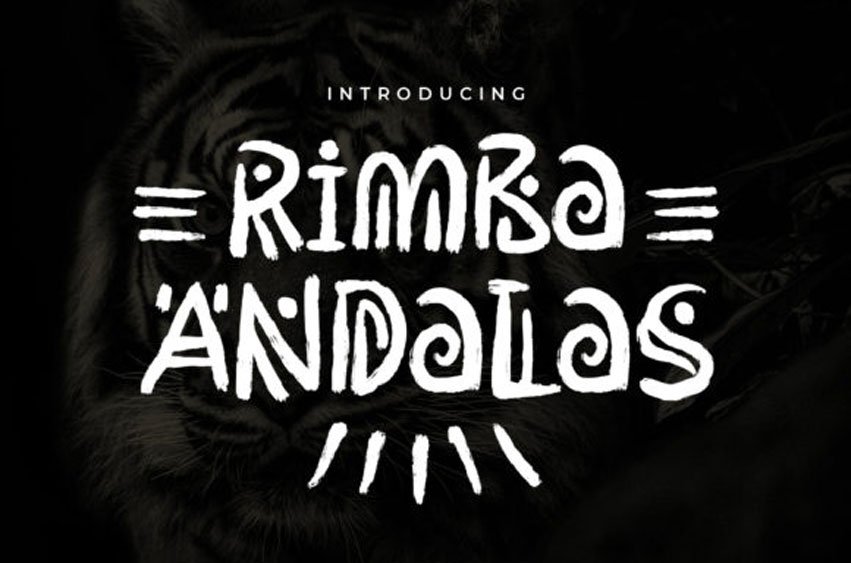
Rimba Andalas Font
Rimba Andalas Font is a unique display font with tribal elements. It is perfect for a wide variety of projects such as: natural theme, traditional, cultural, folk, tribal, children, adventures, and social movement.